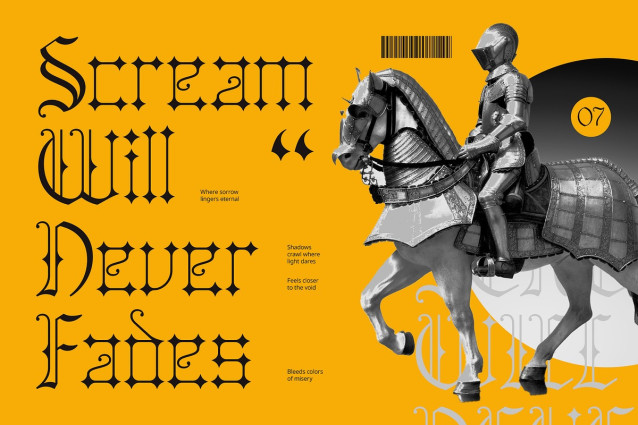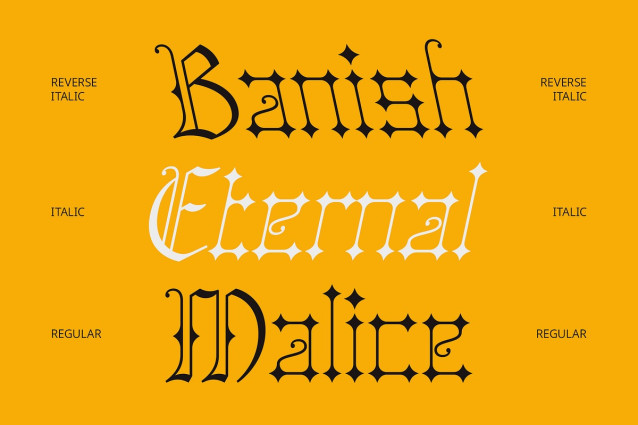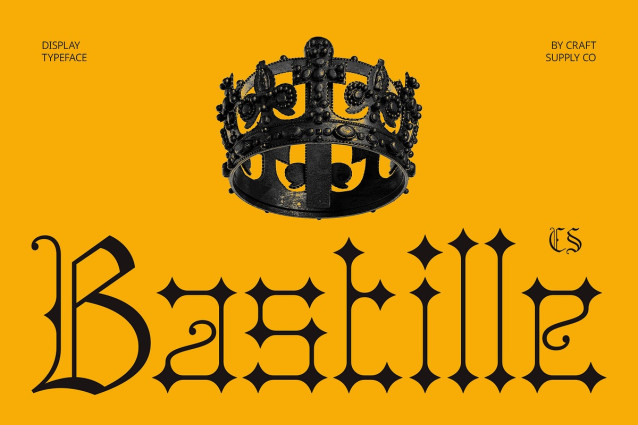
CS Bastille Font
CS Bastille Font is a modern blackletter font that seamlessly combines traditional Gothic letterforms with a clean, contemporary design. Its sharp, ornamental strokes retain the rich heritage of blackletter style, while its refined proportions and balanced structure bring it into the present, making it versatile for a variety of creative applications.
Heritage and Mystery in Every Letter With its intricate detailing, CS Bastille is a display font that evokes a sense of mystery and heritage, perfect for projects that require a touch of drama and sophistication. The elegant refinement of the font ensures readability while maintaining its bold, timeless presence.
Perfect for Bold Branding and Editorial Design Whether used for branding, logos, or editorial materials, CS Bastille’s striking blackletter forms command attention. It works well for high-impact designs in luxury sectors, vintage-inspired projects, or any creative endeavor that seeks to project strength and elegance with a touch of historical flair.
Adaptable for Diverse Design Needs CS Bastille’s bold yet refined appearance makes it an ideal choice for a wide range of design projects. From vintage aesthetics to modern-day branding, this font combines the old-world charm of blackletter with the sleek sophistication required in contemporary design, offering versatility and timeless appeal.